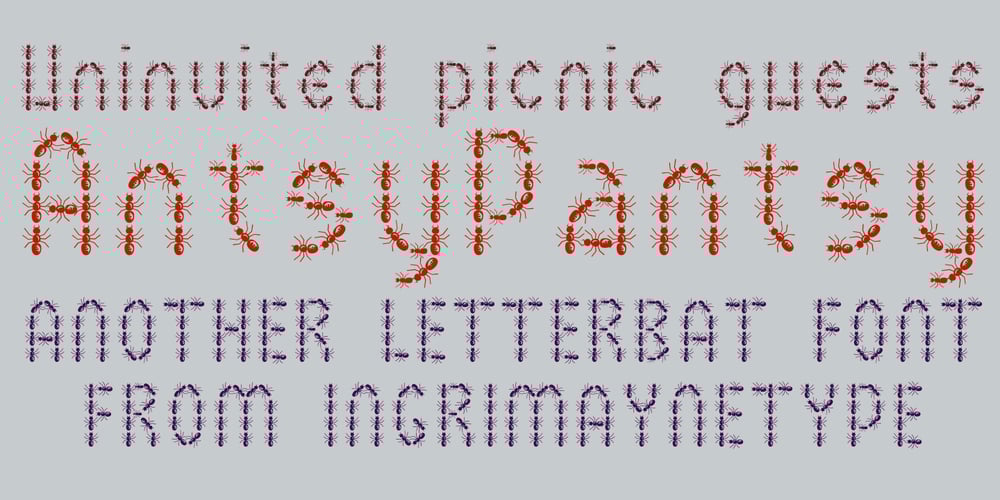
AntsyPantsy
AntsyPantsy font
AntsyPantsy Font Family was designed by Robert Schenk and published by Ingrimayne Type. AntsyPantsy contains 1 styles and family package options. AntsyPantsy, BuggyFont, and MousyFont are based on the same design; only the building blocks—ants, bugs, and a stylized mouse—have been changed.